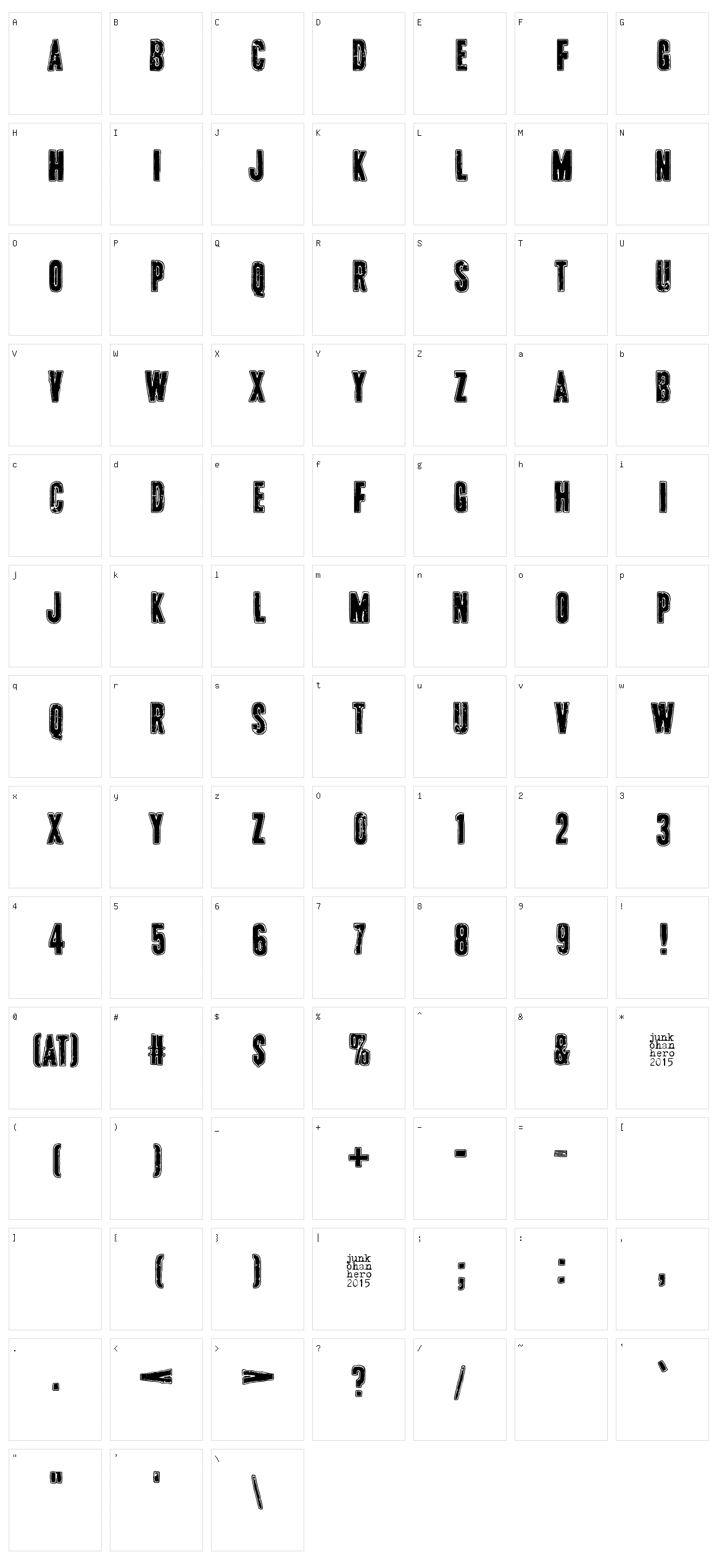
The free font Pink T-shirt is carefully designed by junkohanhero, showcasing a thoughtful balance of creativity and usability and falls under the Eroded font style. When you download the ZIP file, it contains only 215.67 KB of font files, making it lightweight and quick to download. Please review the license details below to understand permitted usage and distribution rights. If license information is not available, we recommend using this font for personal projects only or contacting the author directly for commercial usage permissions.